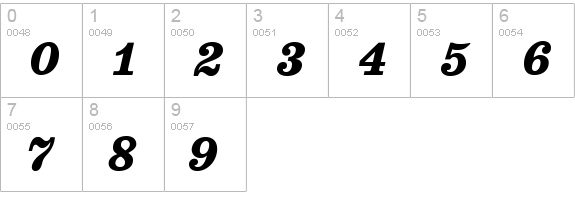
Belizio-BoldItalic Font Details
Introducing Belizio-BoldItalic, a sophisticated and elegant typeface that exudes a sense of modernity and style. With its bold and italic design, this font is perfect for creating eye-catching headlines, elegant logos, and stylish branding projects. Crafted with precision and attention to detail, Belizio-BoldItalic conveys a sense of luxury and sophistication that is sure to make your designs stand out. Whether you're working on a fashion magazine, high-end product packaging, or a sleek website design, this font will elevate your projects to the next level. And the best part? Belizio-BoldItalic is available for free download at FontsMarket.com. So go ahead and add this stunning font to your collection today and take your design work to new heights.